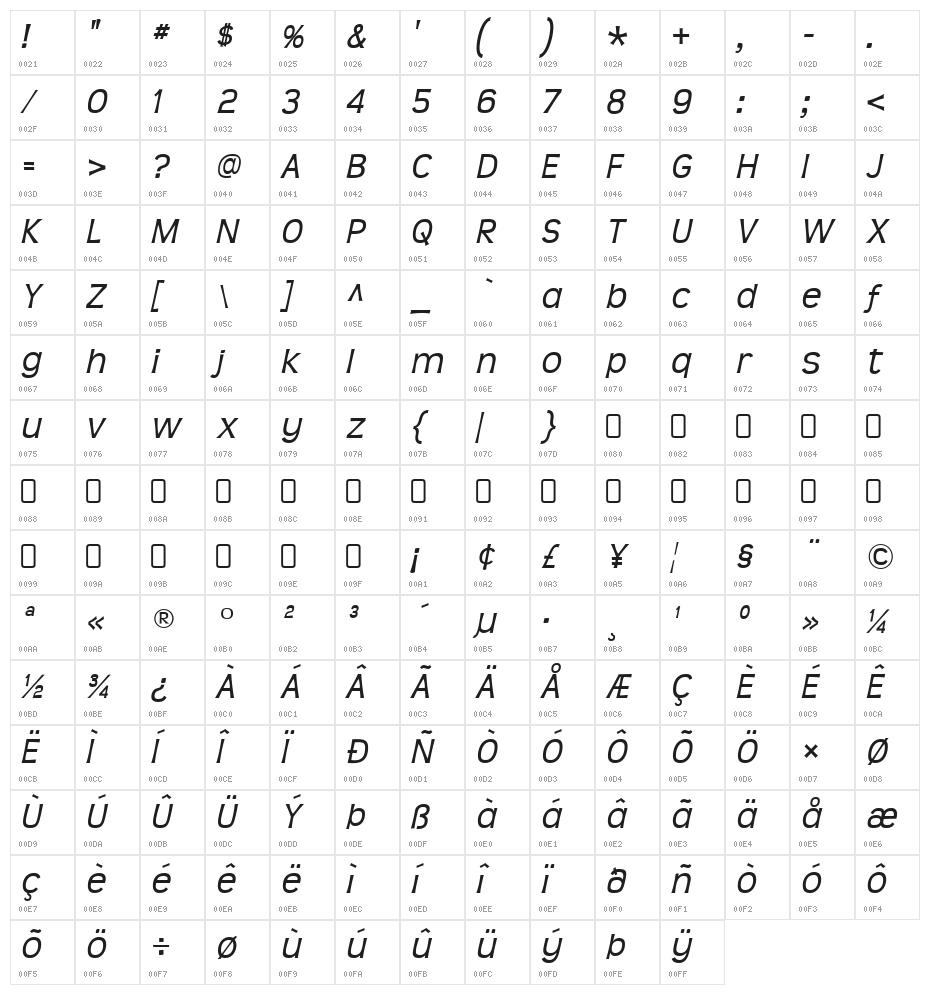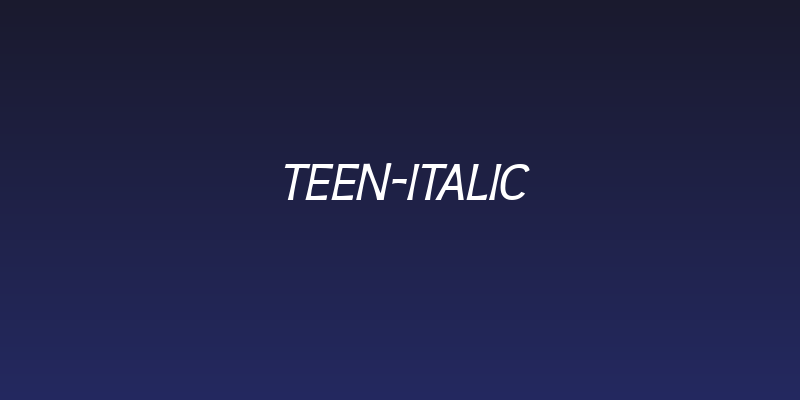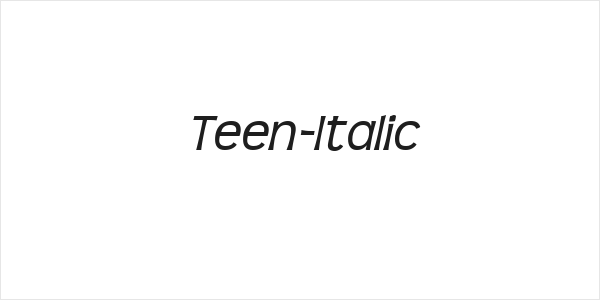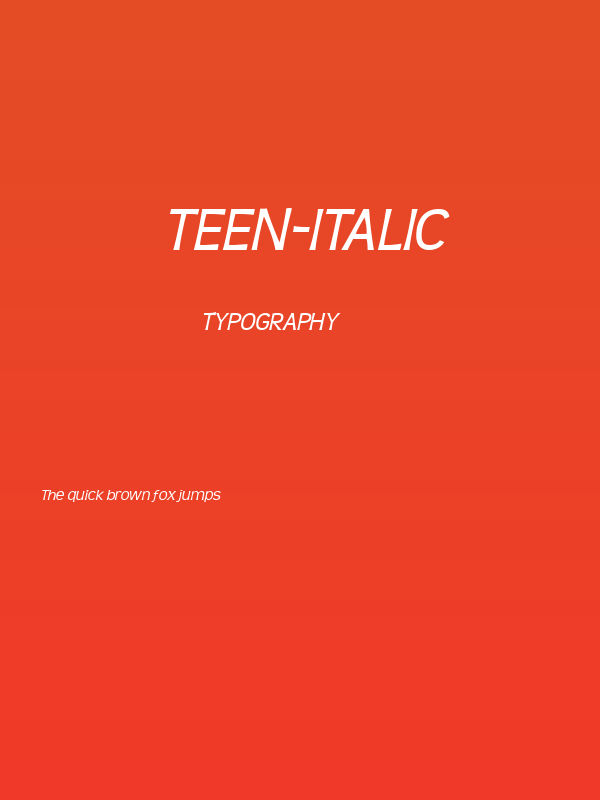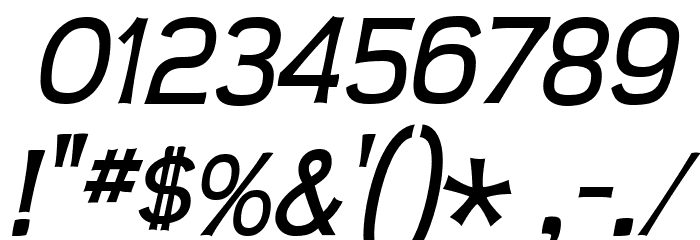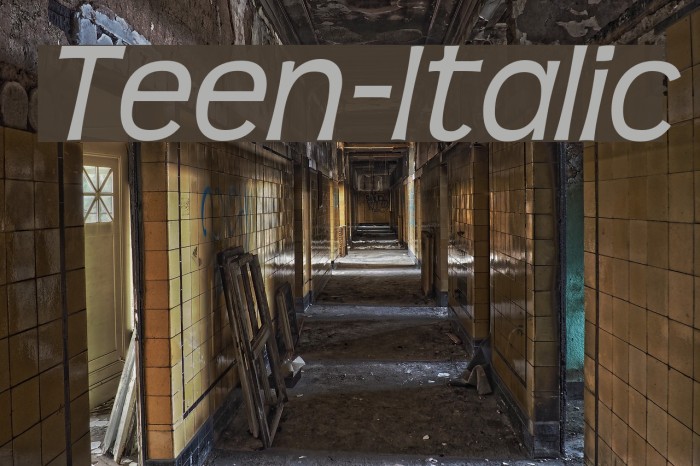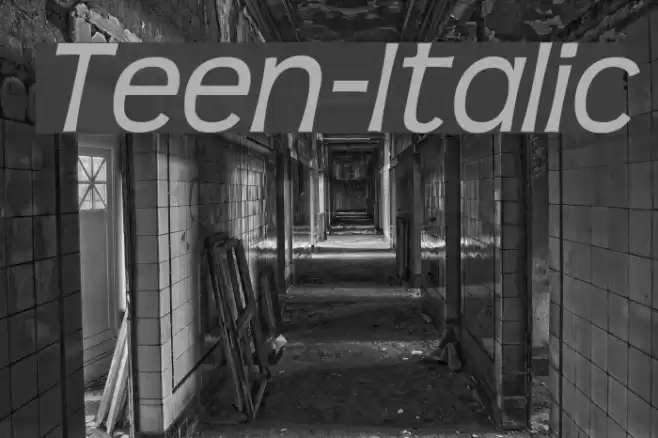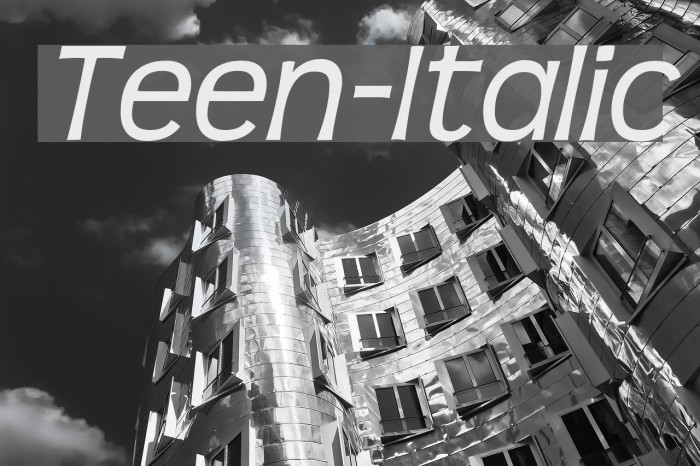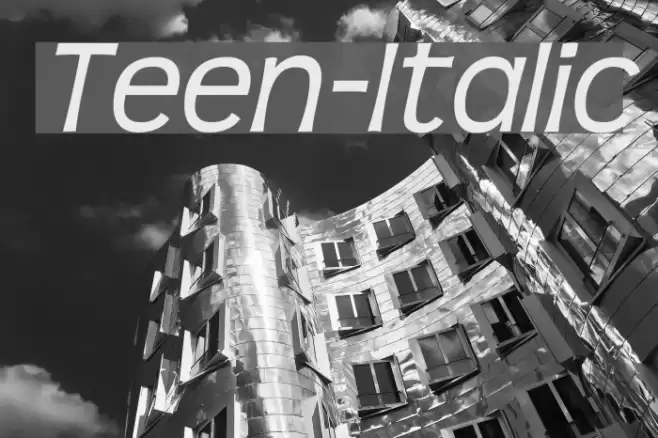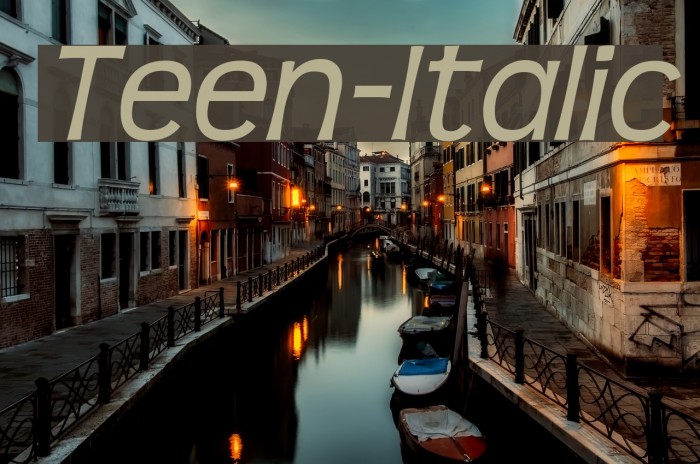
Teen-Italic Font
Teen-Italic Description
This font features a sleek, italicized style that exudes a modern and dynamic feel. The characters are slightly slanted, giving a sense of motion and fluidity. The uppercase and lowercase letters are well-proportioned, with a consistent stroke width that maintains readability. The numerals are clear and distinct, complementing the overall design. Special characters are included, enhancing its versatility for various applications. The font's clean lines and contemporary aesthetic make it suitable for a wide range of design projects.
| Use Case | Headlines, Body text, Logos |
| Proposed Projects | Ideal for branding, advertising, digital media, and editorial design projects. |